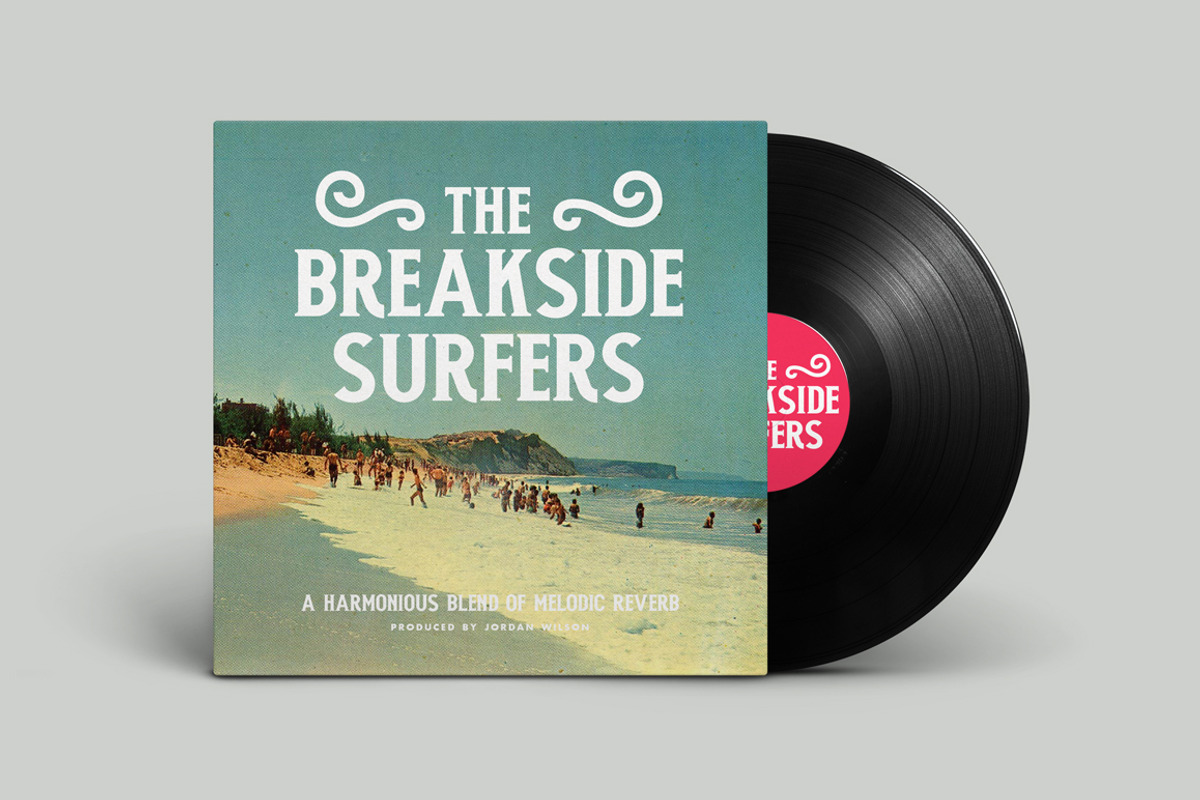
Monterey
Introducing Monterey Display Font!
Monterey is a geometric display family that includes 3 various styles for your designing needs. Included in the family is the Regular Serif version, Rough version - designed to give the letters a vintage print feel, and a Special Lined version.
Monterey is inspired and designed in reference to the late 1960's music scene, building on the bold, sturdy characters and mildly condensed shape, finally being rounded out and smoothed - giving it a raw and real tone.